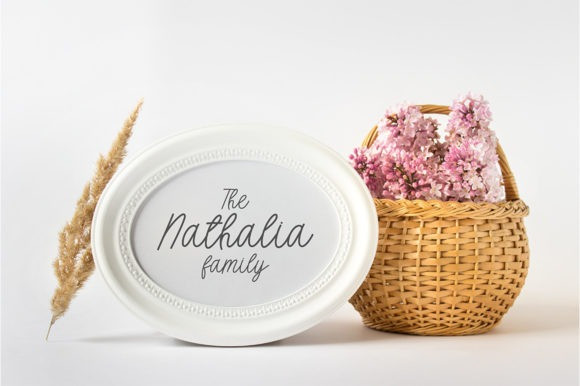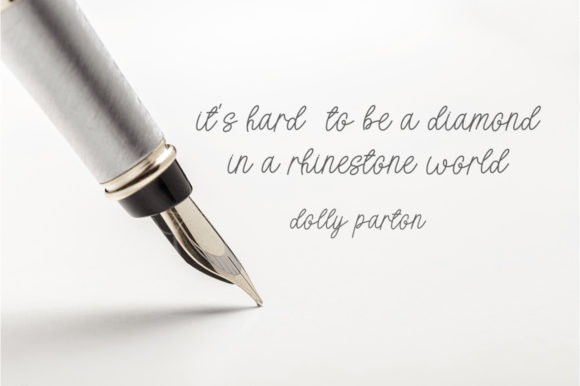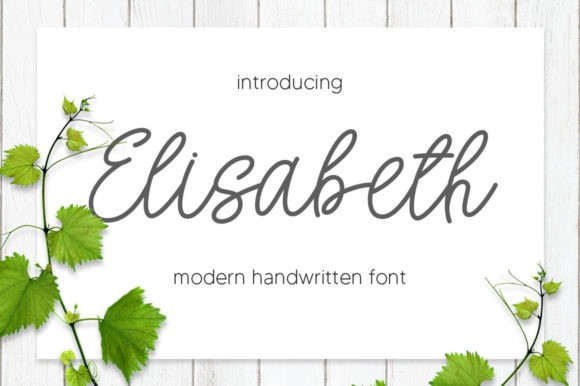
Elisabeth Font
Elisabeth Script Font is a delicate and elegant handwritten font. Its distinct and well balanced letters make this font a masterpiece. Fall in love with its incredibly versatile style and use it to create spectacular designs!